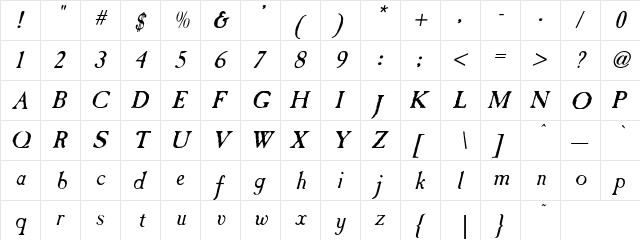
Caslon Antique Italic Regular Font Preview
Caslon Antique Italic Regular
Design Context for Caslon Antique Italic Typeface
Caslon Antique Italic wears its vintage influences proudly, with letterforms that recall mid-century signage, classic packaging, and nostalgia-driven design. The dynamic lean of this cut emphasises speed and emphasis in any layout.
Font Pairing: Combine Caslon Antique Italic with a simple slab or neutral sans — period-accurate companions reinforce the vintage feel without competing for attention.
Pro Tip: Use Caslon Antique Italic for headlines and pull quotes rather than body copy — its personality is best appreciated in short, focused bursts.